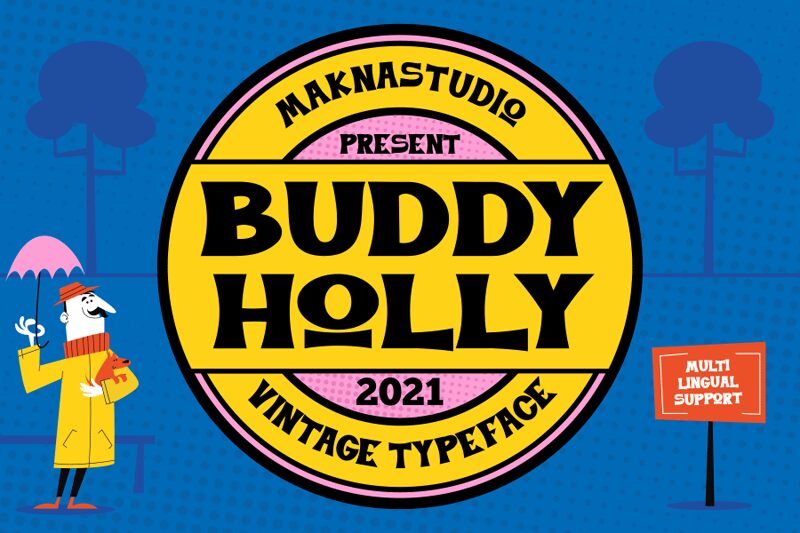
BUDDY HOLLY
The BUDDY HOLLY font, designed by MaknaStudio, is a bold display font that is perfect for a range of creative projects. With its comic style and bold weight, this font is ideal for use in designs that need to make an impact. Whether you're designing posters, flyers or logos, the BUDDY HOLLY font will help your message stand out from the crowd. Its playful style makes it a great choice for children's books and comics, while its bold weight makes it suitable for branding and advertising campaigns. Give your designs a fun and energetic edge with the BUDDY HOLLY typeface!